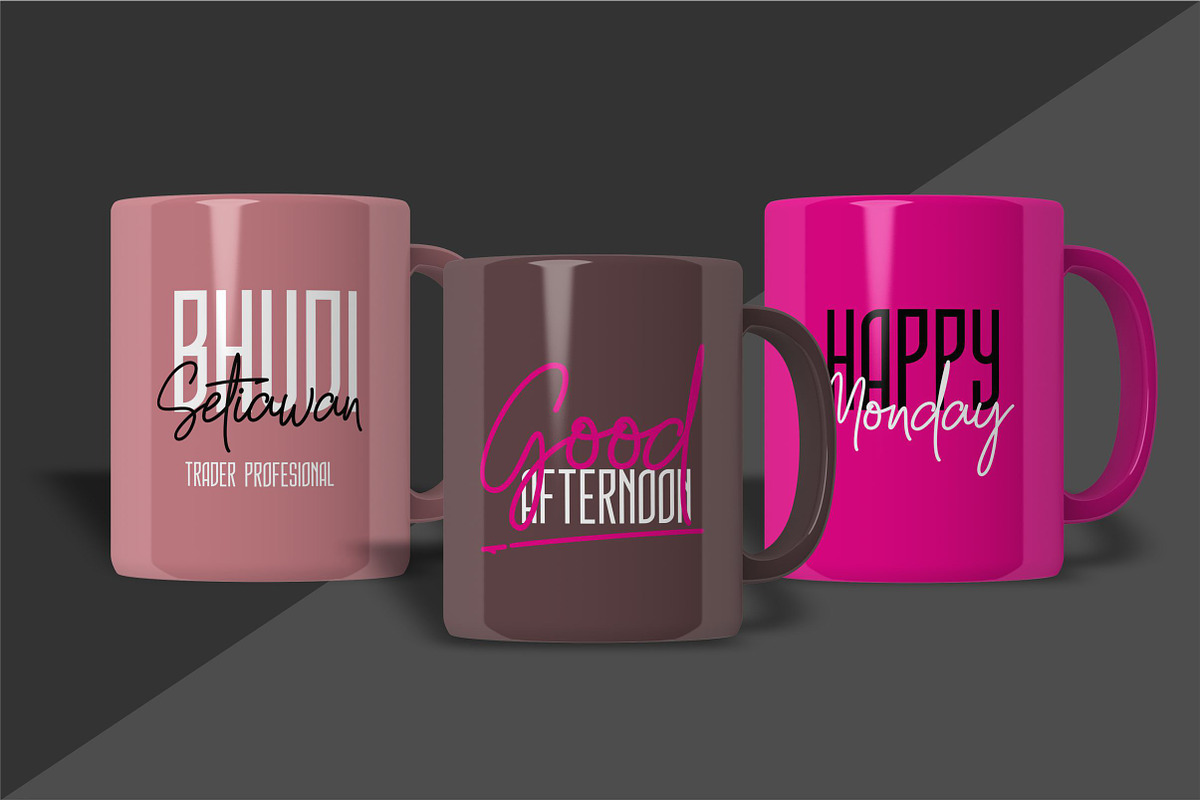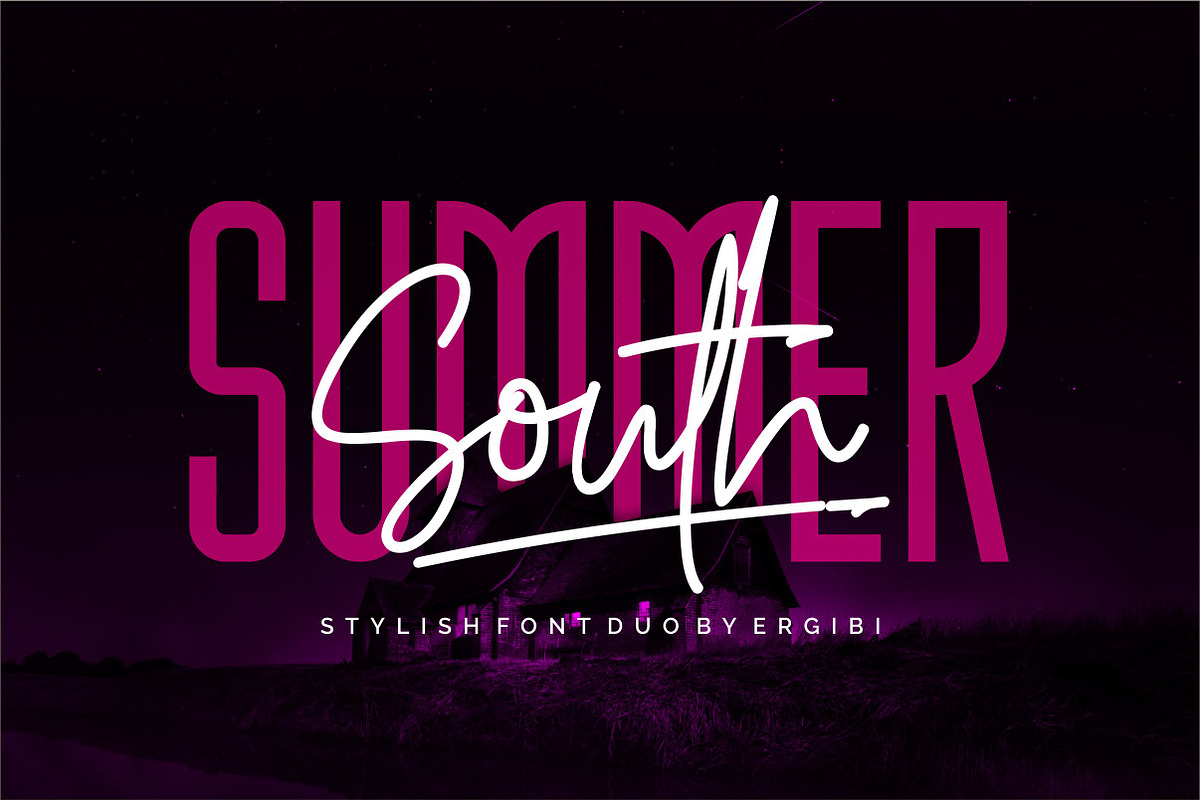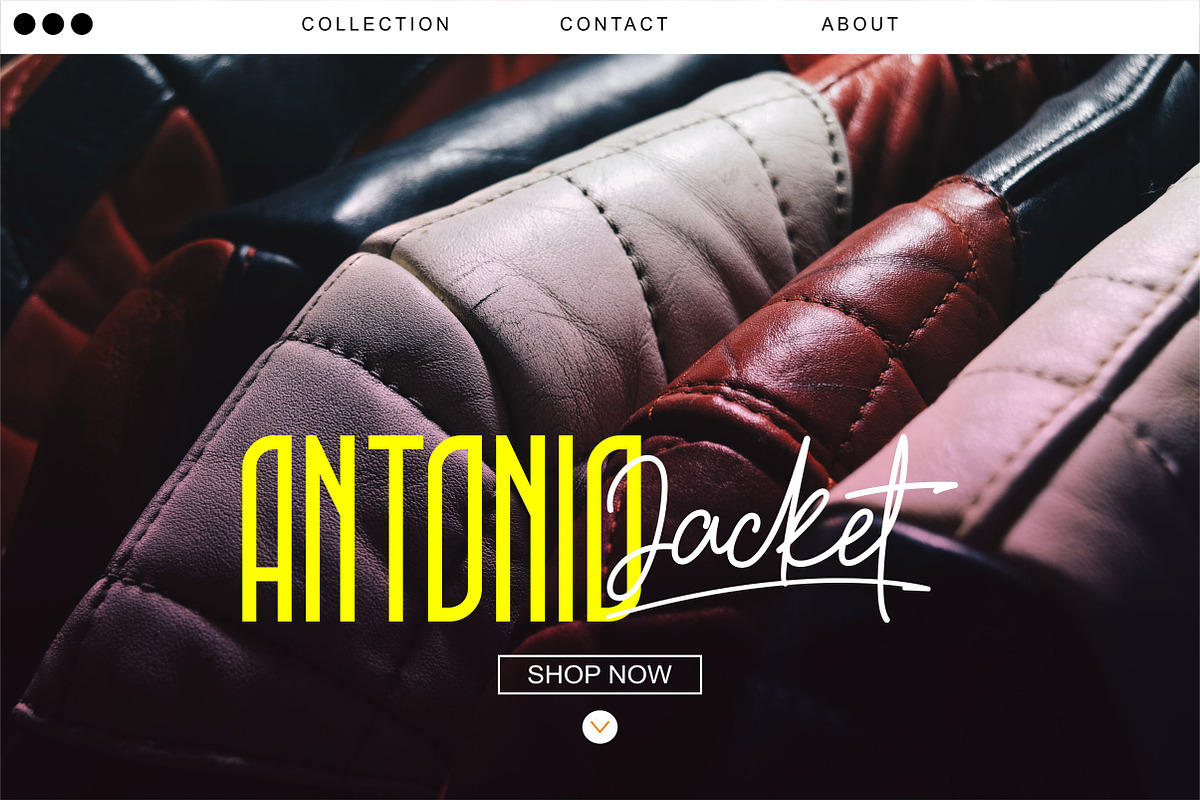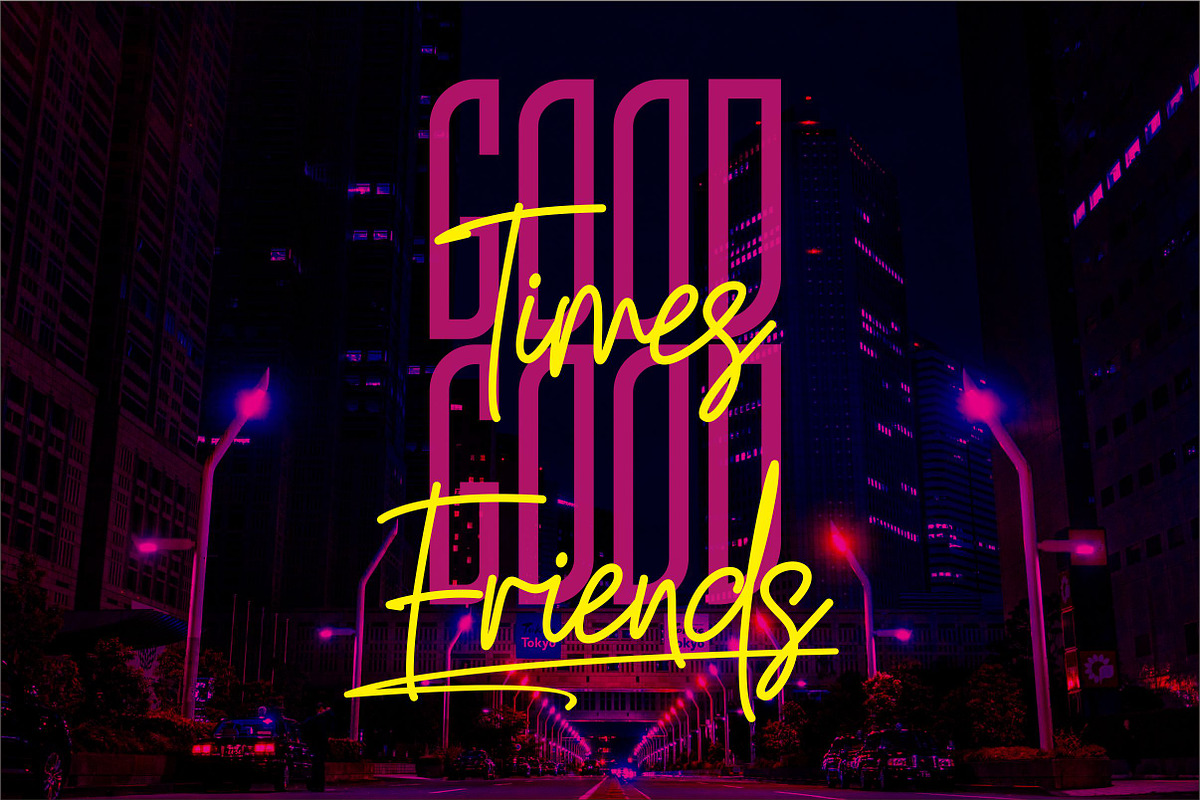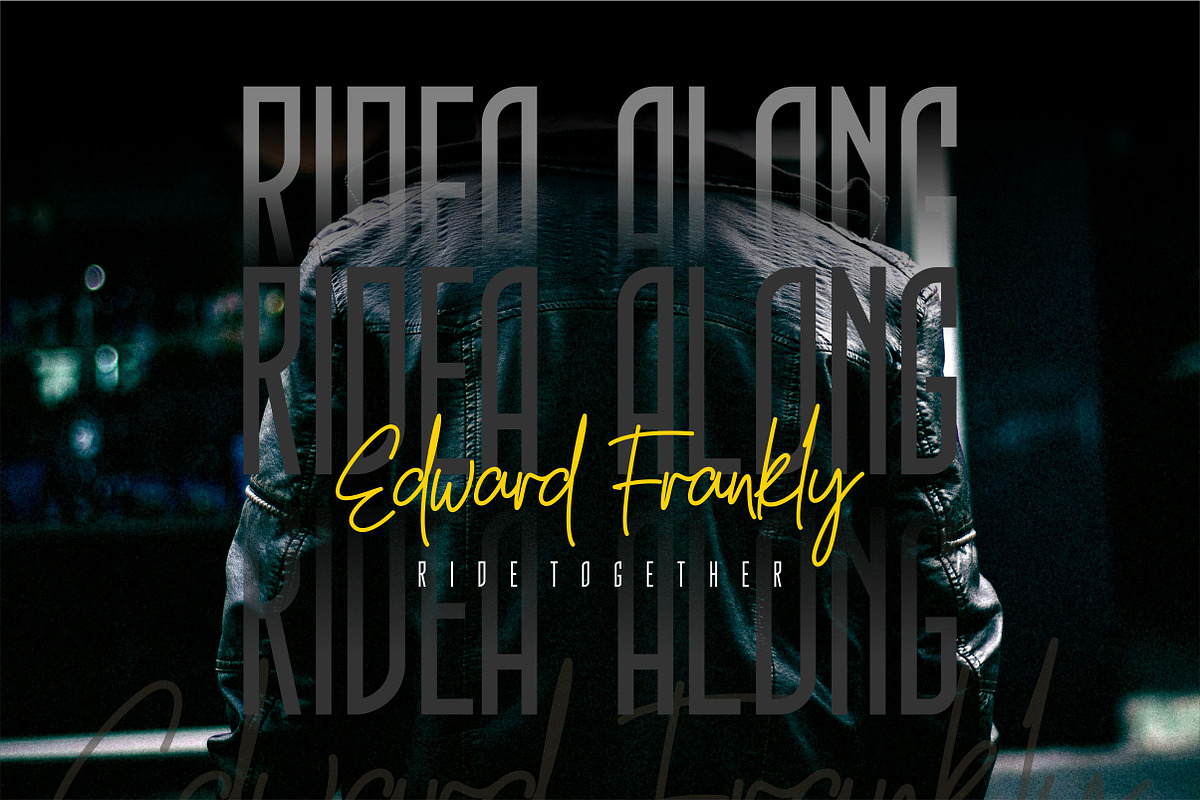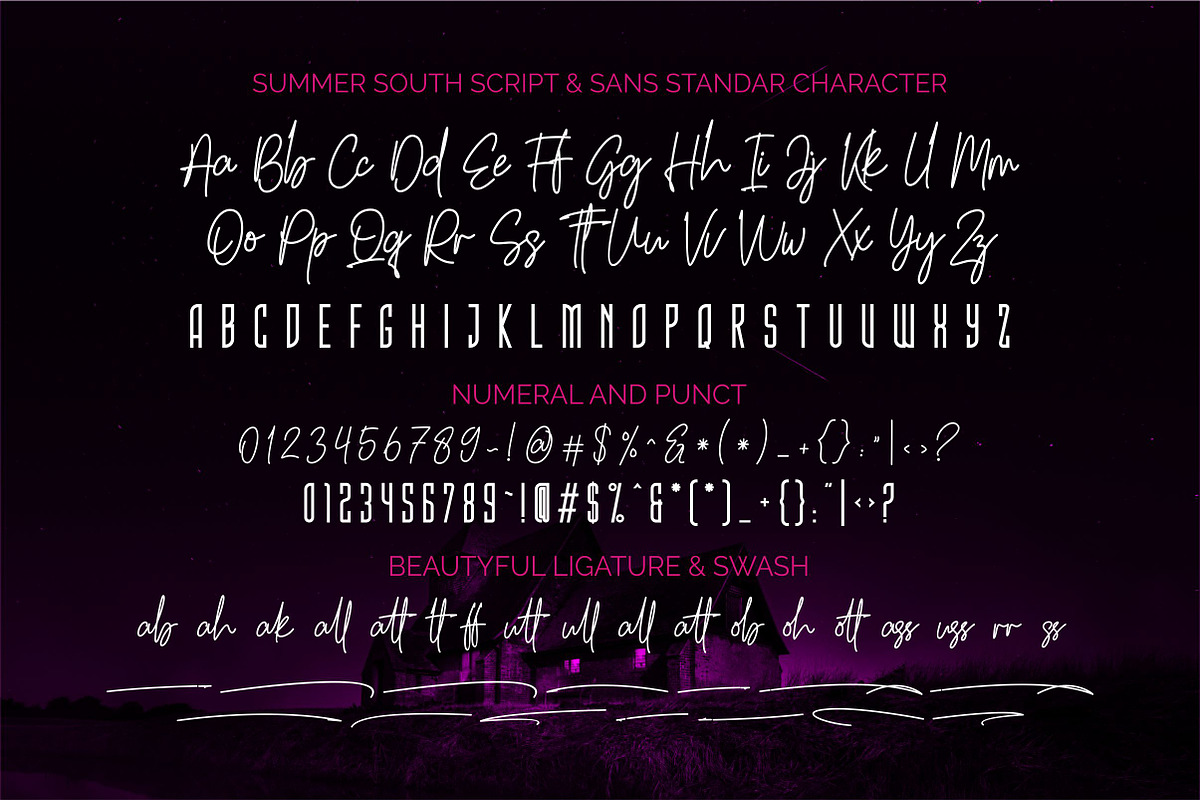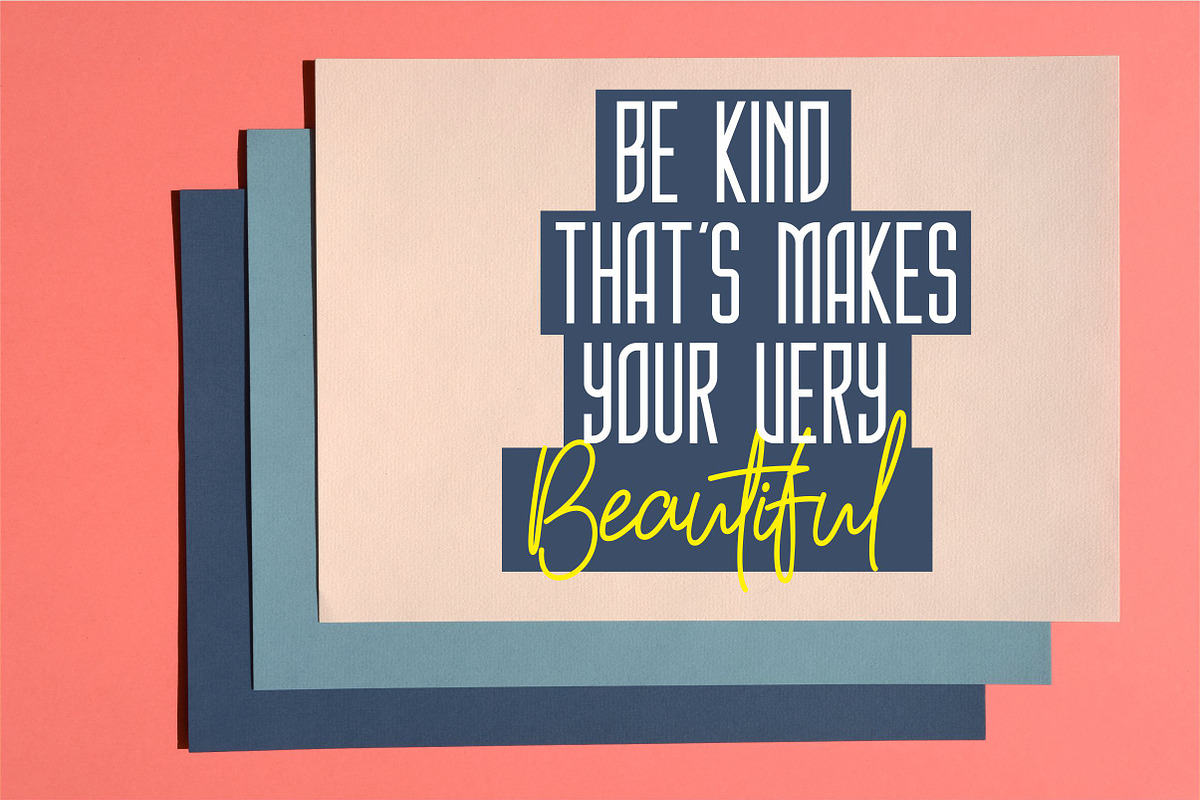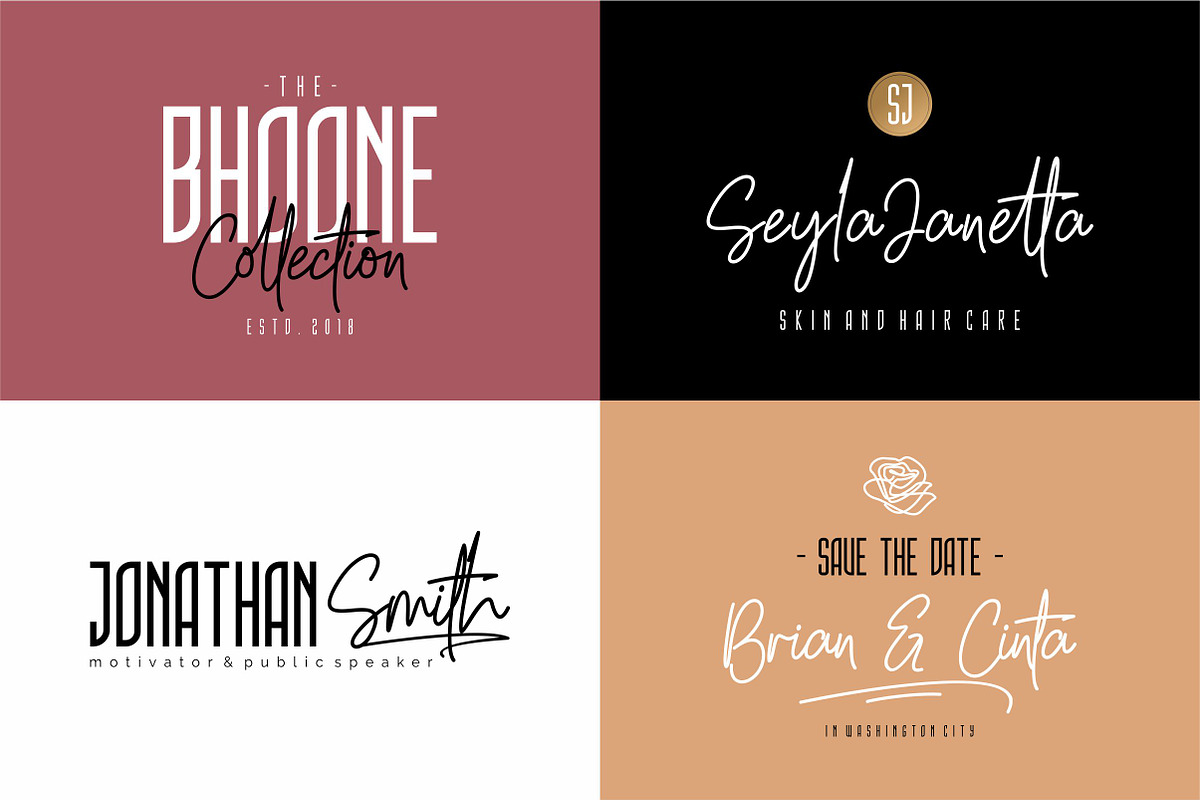
Summer South - STYLISH FONT DUO
Summer South is a blend of 2 handwritten fonts with sans having a distinctive style and classy style, this font is suitable for your creative projects such as watermarks on photography, and perfect for logos & branding, photography, invitations, watermarks, advertisements, product designs, tools write, wedding designs, labels, product packaging, special events or anything that requires a handwritten flavor with a blend of sans.
Summer South comes with 2 Signature and Sans Styles and has beautiful swash bonuses: uppercase, lowercase, numbers, punctuation, binders, alternative letters and multilingual support